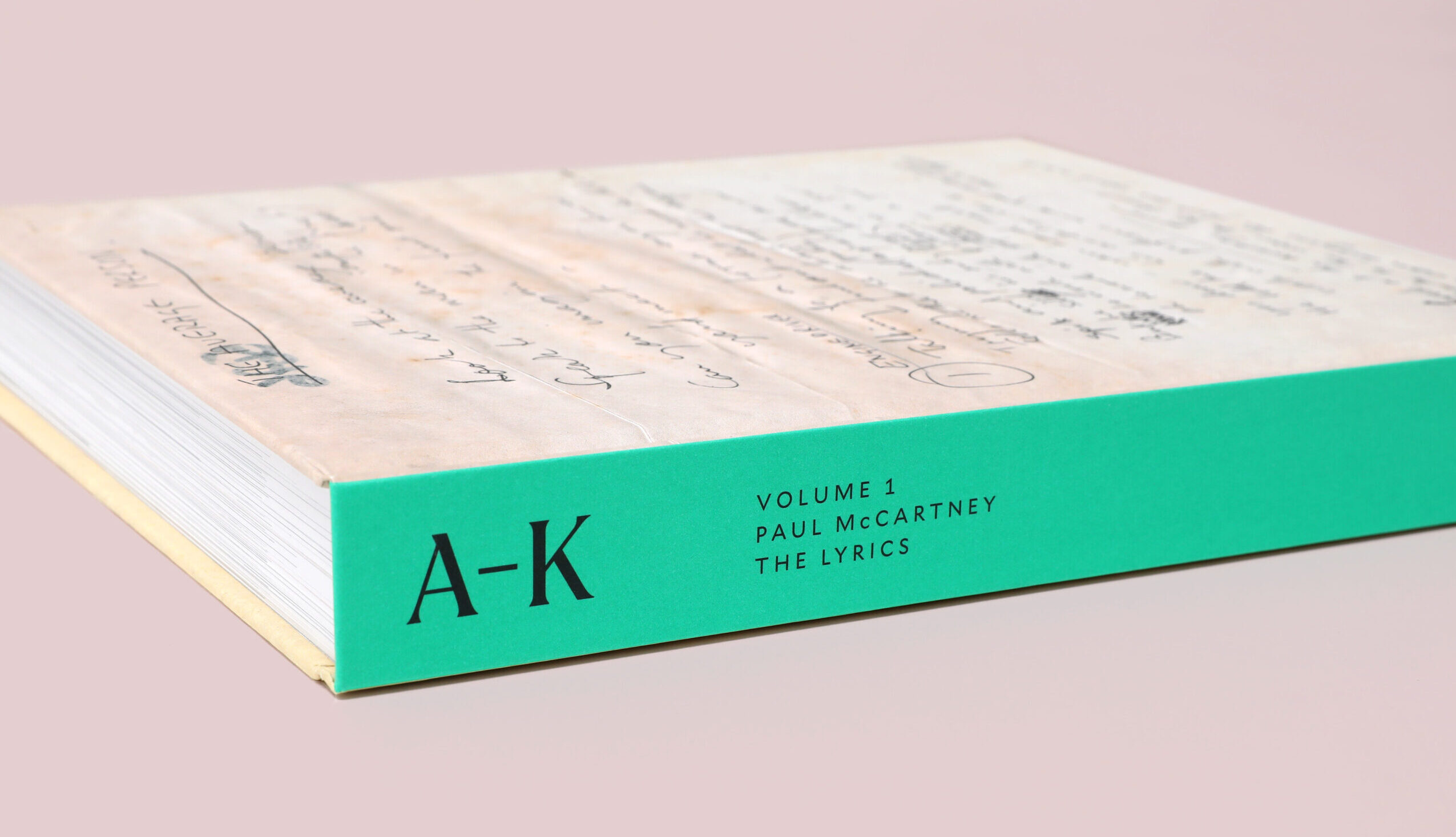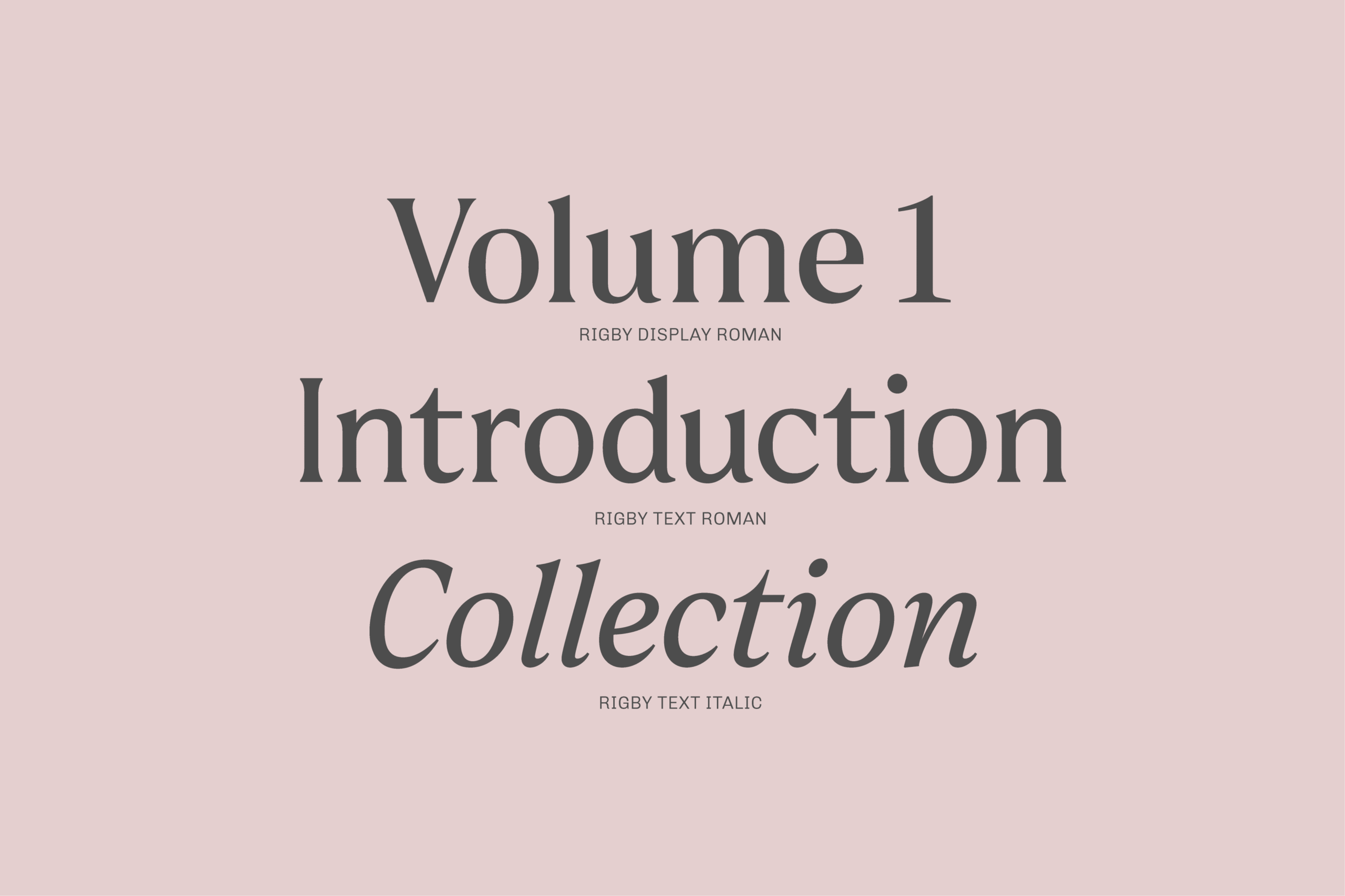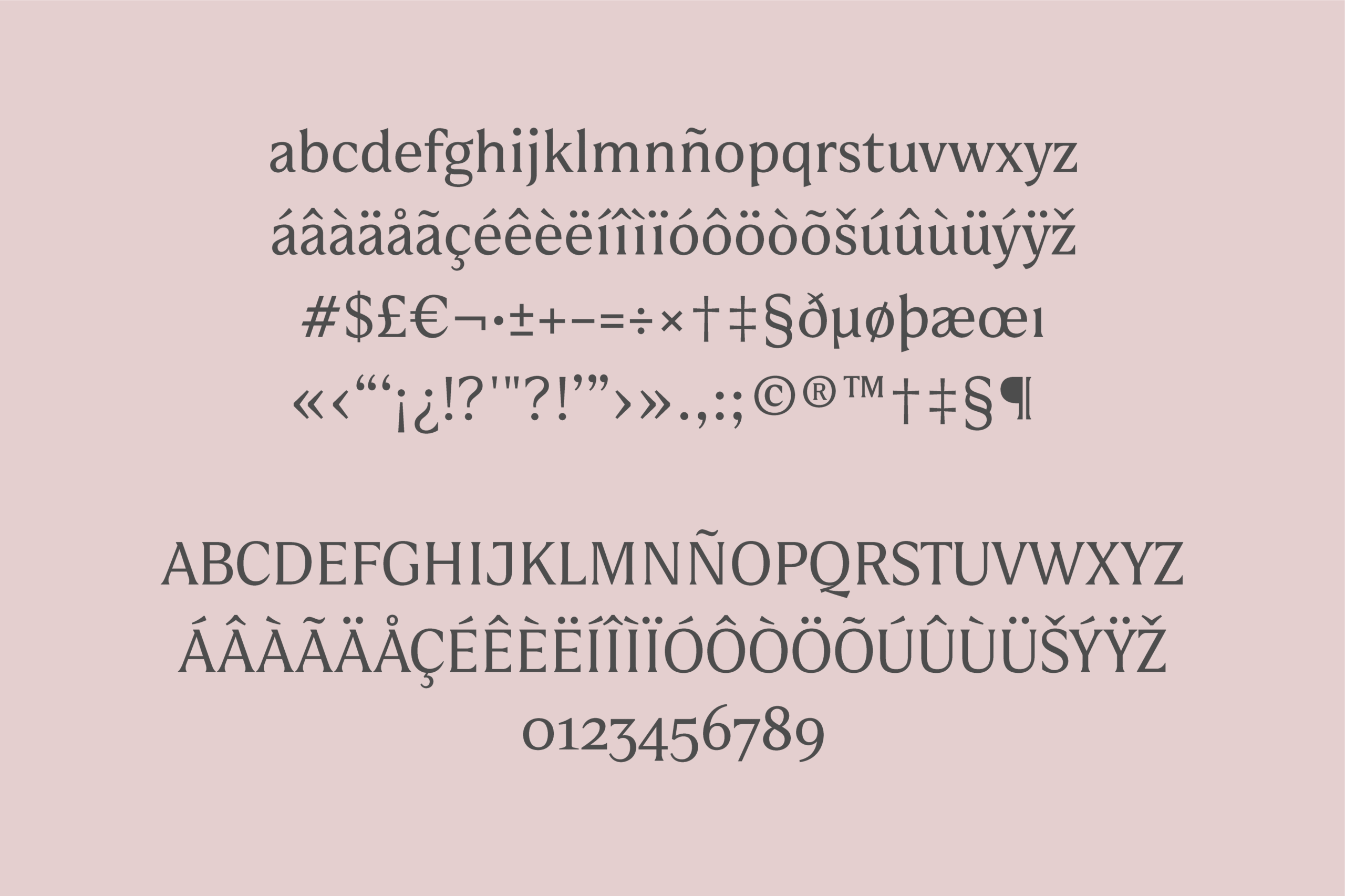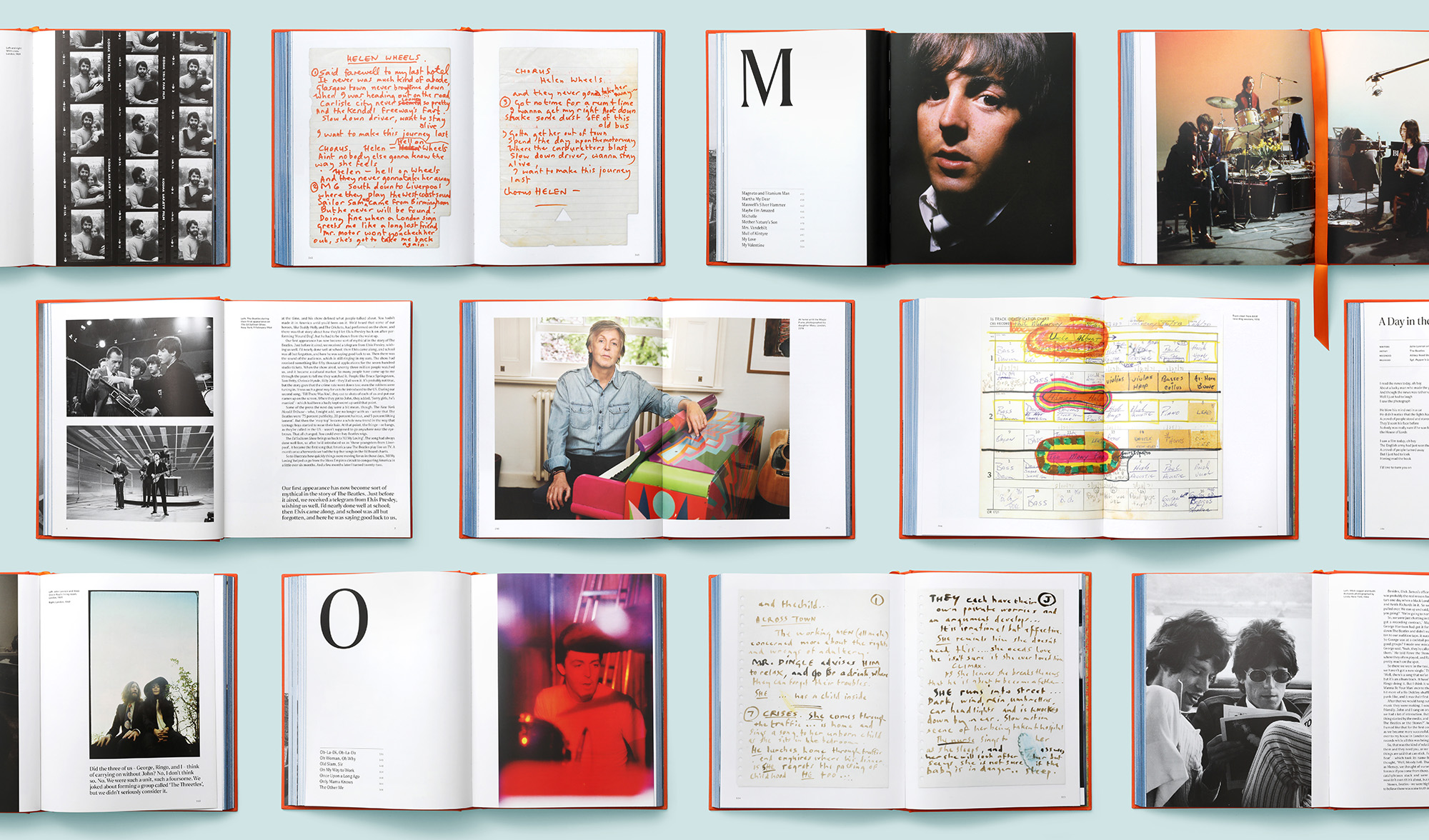
Rigby
Developed in collaboration with Triboro Design, NY.
Rigby is the typeface developed for The Lyrics, Paul McCartney’s memory book. The Lyrics celebrates the creative life and musical genius of Paul McCartney through 154 of his most significant songs. The book was composed in Rigby, designed by Marcela Romero, Pablo Cosgaya and Óscar Guerrero, based in original sketches of David Heasty.